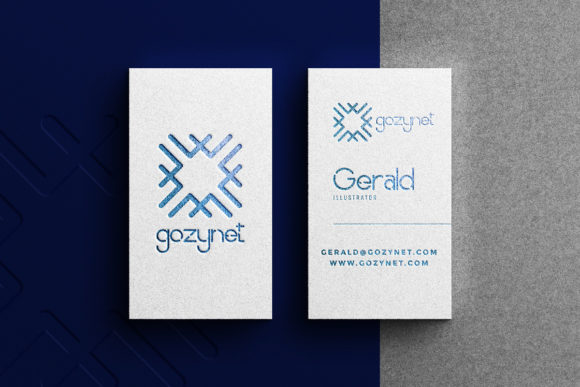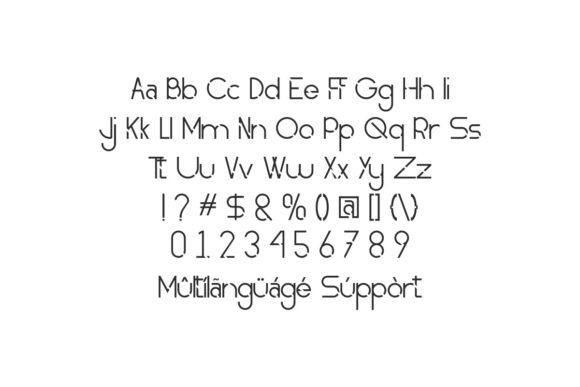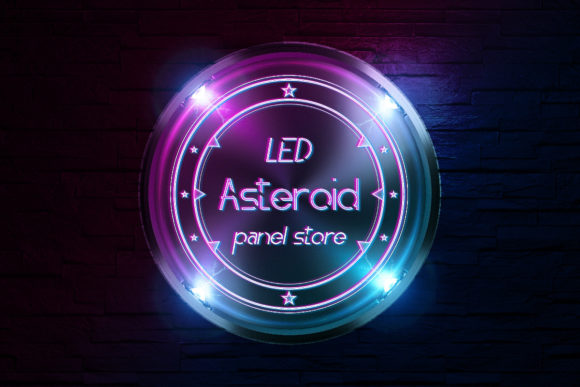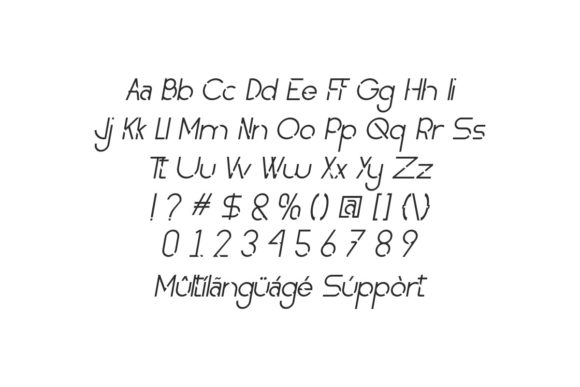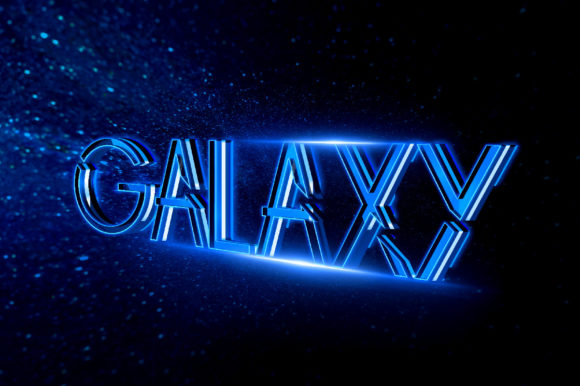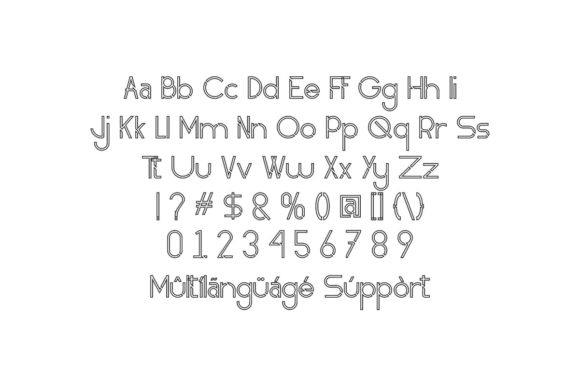
Introduction to Obedient Font
Have you ever found yourself stuck in a creative rut, searching for the perfect font to elevate your design project? Maybe you’re working on a logo for a new business or crafting the perfect invitation for a special occasion. Whatever your creative endeavor, you know that the right font can make all the difference. This is where the Obedient Font comes in – a cool and casual display font that’s sure to capture your audience’s attention.
As a valuable resource for designers, the Obedient Font is perfect for a variety of creative projects, from headings and logos to branding design and quotes. Its high-quality design and transparent background make it a versatile choice for any design need. And the best part? It’s available for free download, making it an accessible design resource for anyone looking to take their projects to the next level.
- High-quality font with a transparent background, ideal for creative projects requiring a clean and modern look.
- Designed with precision and attention to detail, resulting in a professional-grade font suitable for a wide range of applications.
- Unique characteristics: elegant lines, sophisticated typography, and a subtle texture, making it perfect for branding, packaging, and editorial design.
Honest Review: Obedient Font
I recently had the chance to work with the Obedient Font for a creative project and I must say, it’s been a game-changer. This high-quality font is a must-have for any designer looking to add a touch of sophistication to their designs.
One of the standout features of the Obedient Font is its transparent background, which makes it incredibly versatile and easy to use. I was able to seamlessly integrate it into my design without any hassle, which is a huge plus.
- ⚠️ Limited character set, which may not be ideal for long-form text
- ⚠️ Not suitable for use in very small font sizes
Overall, I’m really impressed with the Obedient Font and would highly recommend it to fellow designers. Its high-quality design and transparent background make it a valuable addition to any design toolkit.
To get the most out of the Obedient Font, use it with a transparent background to create a clean and modern design. You can also experiment with different font sizes and colors to add visual interest to your design.
The Obedient Font is ideal for a variety of creative projects, including logos, social media graphics, brochures, and presentations. Its high-quality design makes it a great resource for designers and non-designers alike.